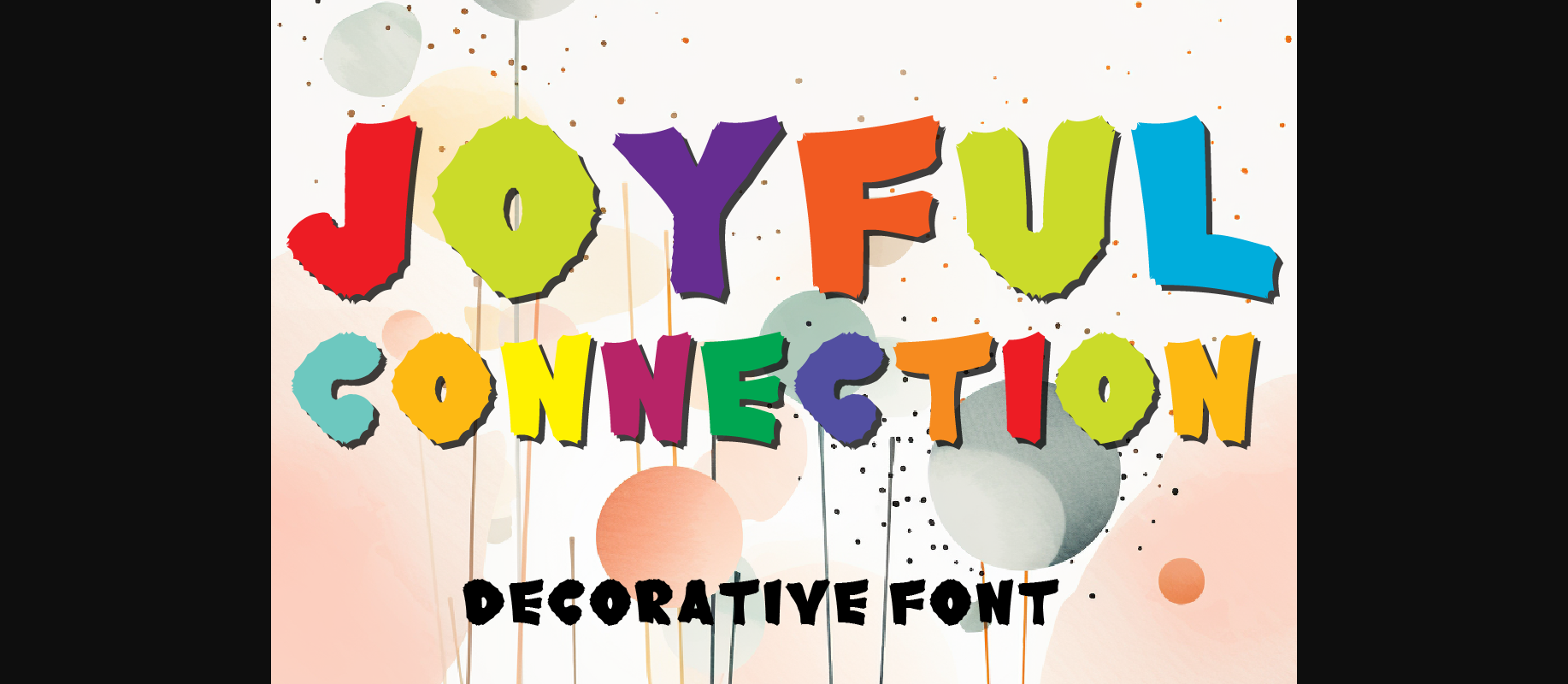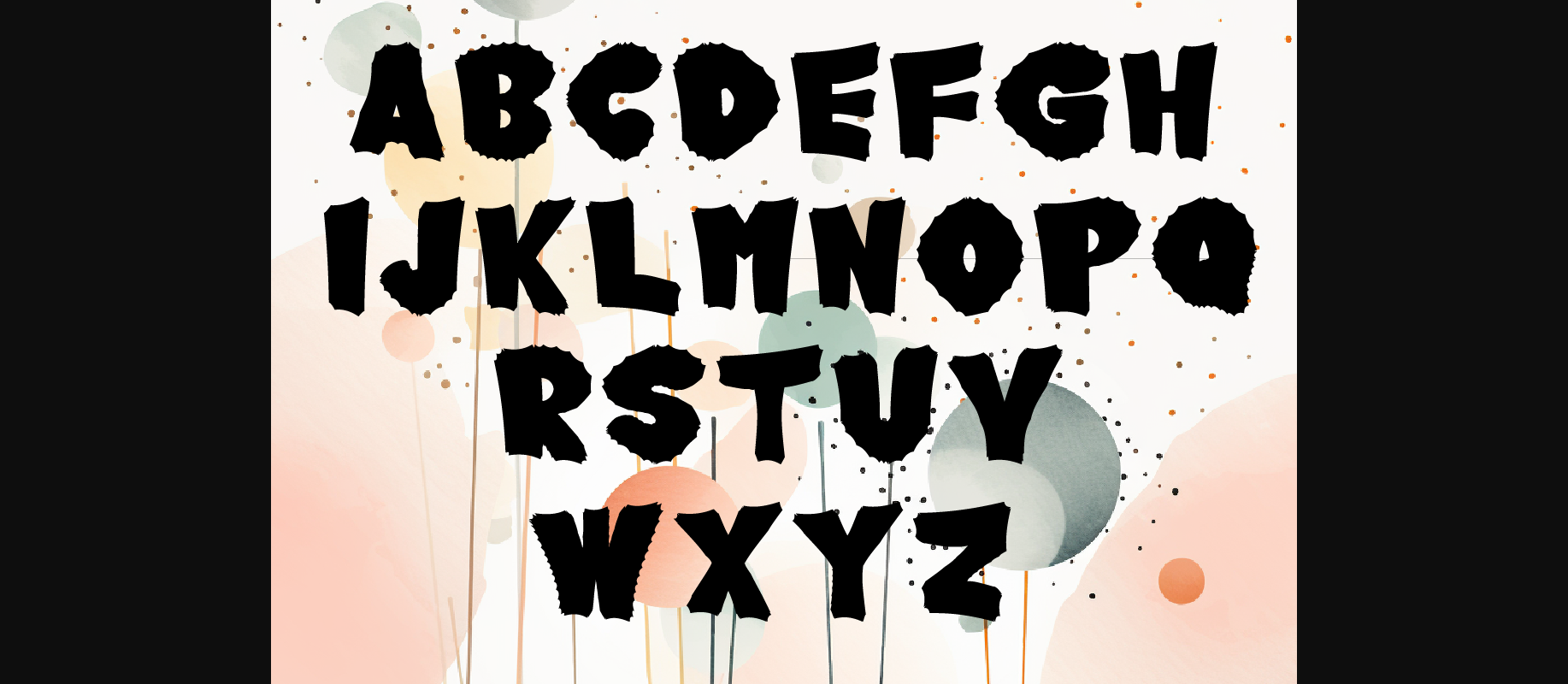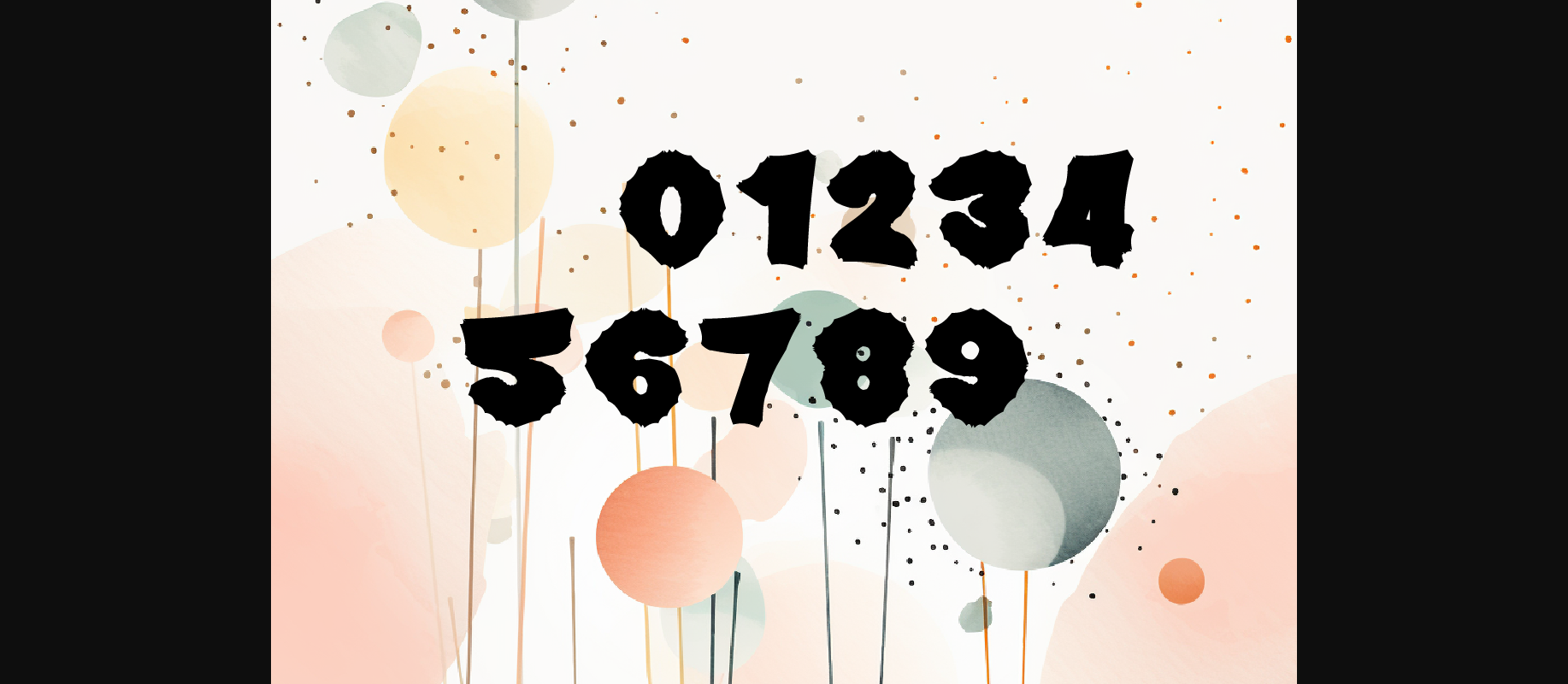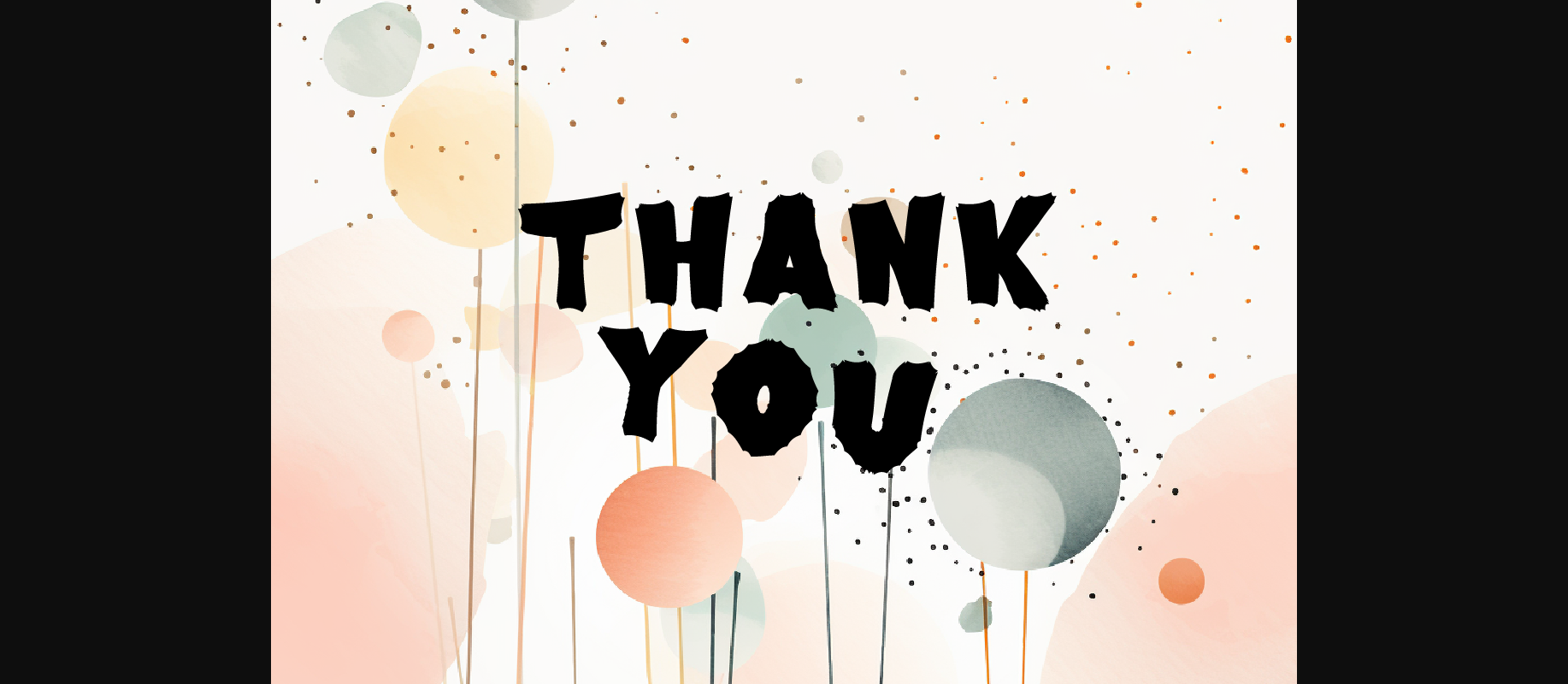
About Joyful Connection Font
Introducing “Joyful Connection,” a delightful set of decorative fonts designed to add charm and creativity to your projects. With 26 capital letters and 10 numbers included, this font collection offers versatility and style for various applications. Whether you’re designing invitations, posters, logos, or any other artwork, these fonts can elevate your creations with their unique flair.
Each letter and number is carefully crafted to convey a sense of joy and connection, making your designs stand out with their playful and inviting appeal. From elegant titles to whimsical headlines, “Joyful Connection” offers endless possibilities to express your creativity.